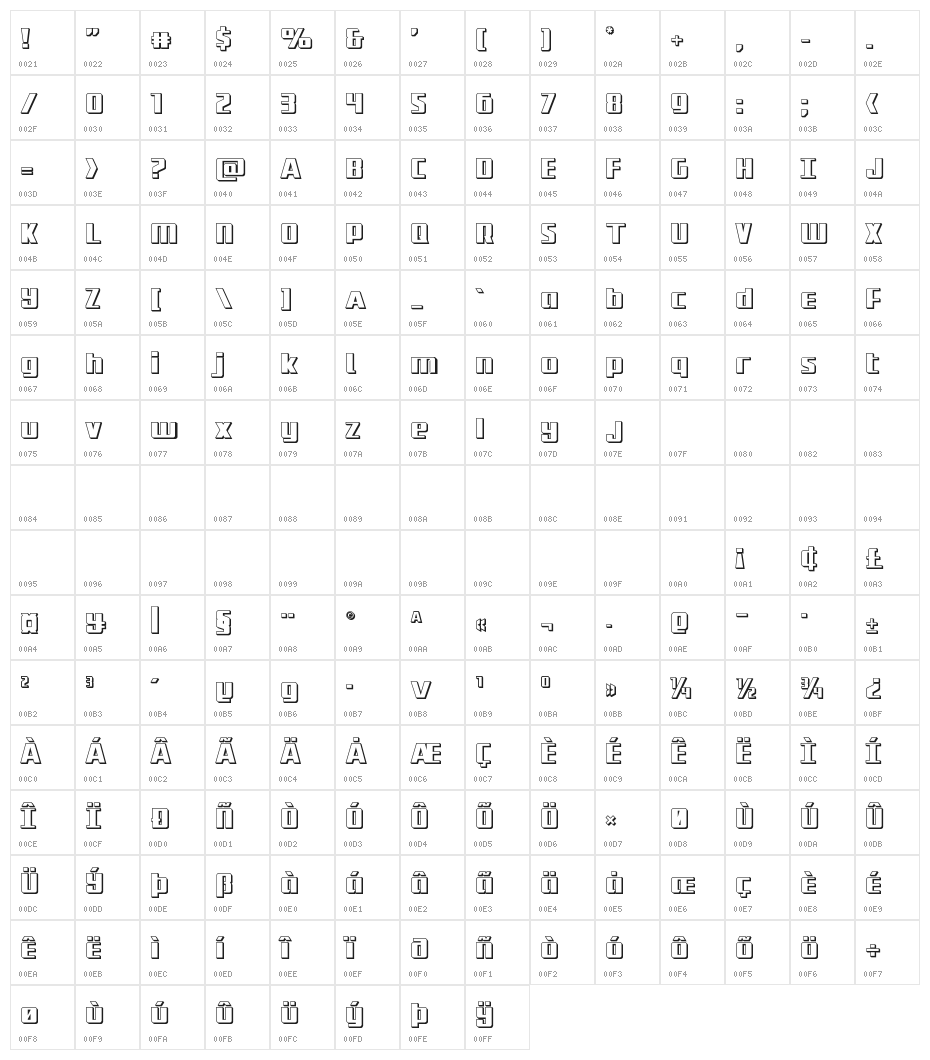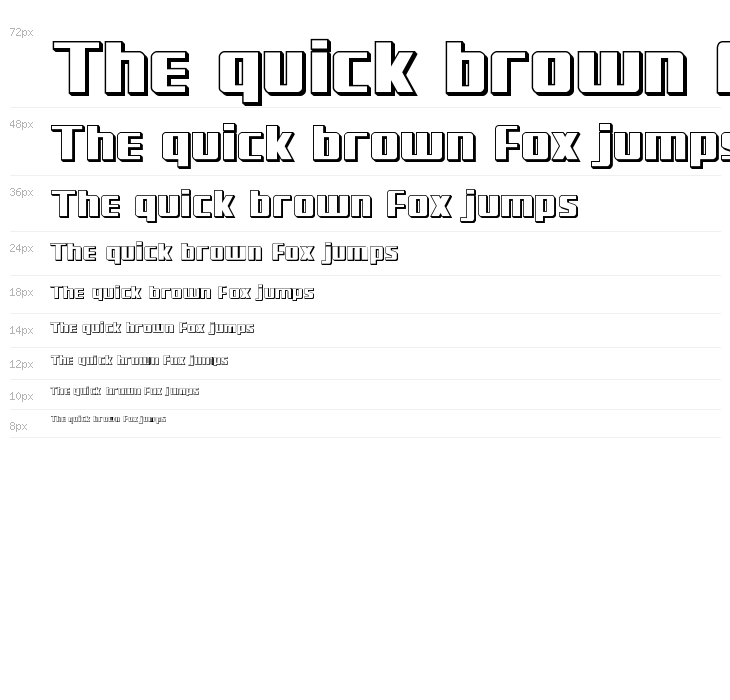
Subadai Baan 3D Font
Subadai Baan 3D Description
This font features a bold, three-dimensional design with a strong geometric structure. Each character is outlined, creating a shadow effect that gives the font a distinct depth and presence. The uppercase and lowercase letters maintain a consistent width, contributing to a uniform appearance. The numerals and special characters are designed with the same bold outline, ensuring visual harmony across all elements. The font's style is modern and impactful, making it suitable for projects that require a strong visual statement. Its unique 3D effect is ideal for creating eye-catching headlines and logos.
| Proposed Projects | Ideal for branding, logos, posters, and any design needing a bold, modern statement. |